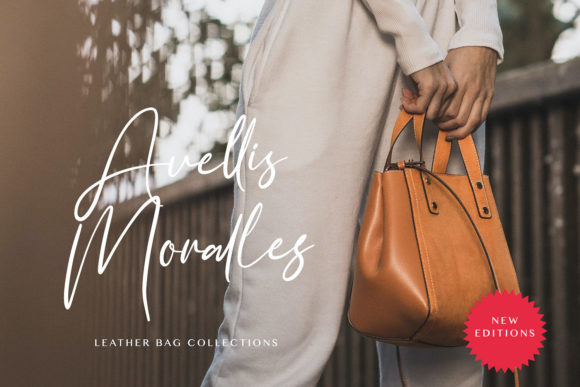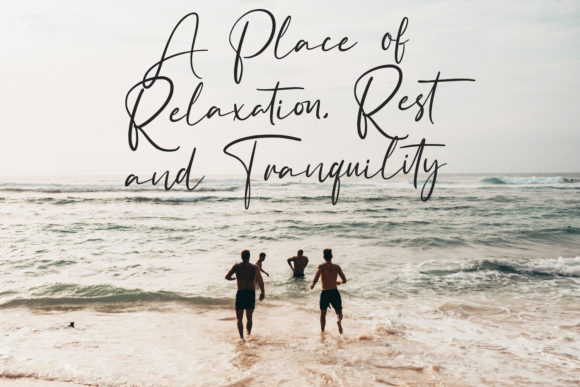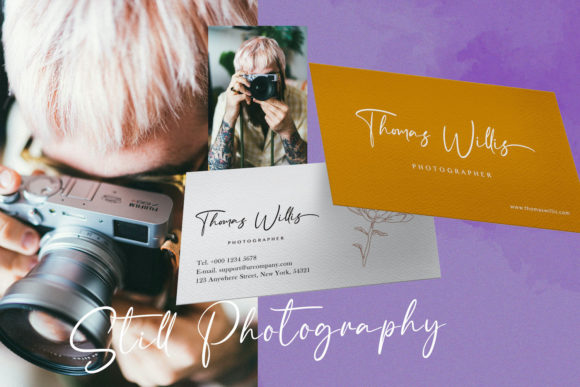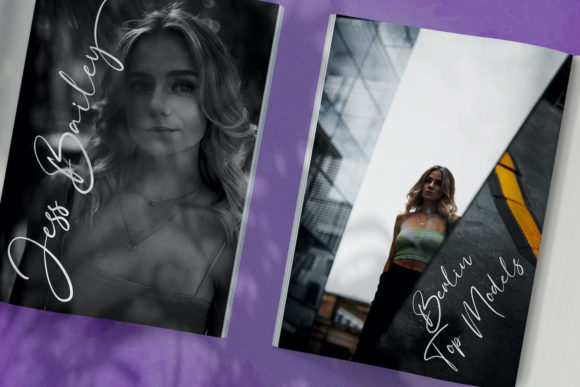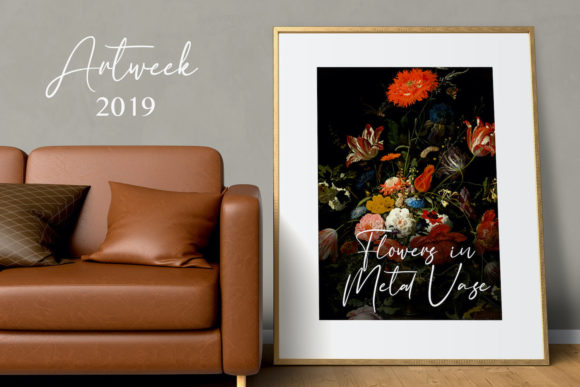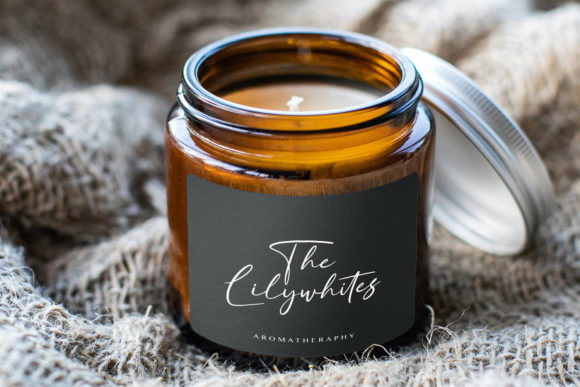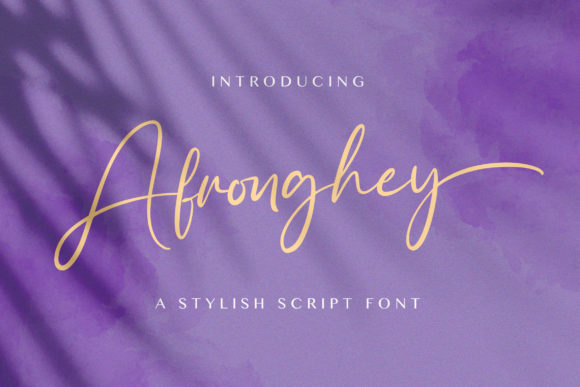
Afronghey Font: Elevate Your Designs with Elegance and Sophistication
In the world of typography, a font can make or break a design. For designers and crafters seeking to add a touch of elegance and sophistication to their work, the Afronghey Font is an exceptional choice. This beautiful script font boasts a flowing and refined aesthetic, perfect for creating stunning logos, branding materials, invitations, stationery, wedding designs, social media posts, and more.
The Characteristics of Afronghey Font
Afronghey Font is characterized by its classy, elegant, and modern look. Its unique design elements make it stand out from other script fonts, offering a distinctive flair that can elevate any design. The font’s flowing lines and refined features give it a sophisticated feel, making it ideal for projects that require a high level of elegance.
One of the key benefits of the Afronghey Font is its versatility. Its elegant design makes it suitable for a wide range of applications, including:
- Logos and Branding: Create a lasting impression with a logo that exudes sophistication and elegance.
- Invitations and Stationery: Add a touch of refinement to your invitations, business cards, and letterheads.
- Wedding Designs: Make your wedding designs truly unforgettable with a font that embodies romance and luxury.
- Social Media Posts: Elevate your social media presence with stylish and engaging posts.
Afronghey Font is PUA (Private Use Area) encoded, which means that accessing all the glyphs and swashes is effortless. PUA encoding allows designers to access a wide range of characters and glyphs that are not available in standard fonts. This feature makes it easy to customize your designs and add unique touches that make your work stand out.
Why Choose Afronghey Font?
With so many fonts available, why choose Afronghey Font? Here are a few compelling reasons:
- Unique Design: Afronghey Font offers a distinctive design that will set your work apart from others.
- Ease of Use: With PUA encoding, you can easily access all the glyphs and swashes, making it simple to create stunning designs.
- Versatility: This font can be used for a wide range of applications, making it a valuable addition to your design toolkit.
- Elegance and Sophistication: Afronghey Font brings a level of elegance and sophistication to your designs, ensuring that your work looks professional and high-end.
Tips for Using Afronghey Font
To get the most out of Afronghey Font, consider the following tips:
- Pair with Complementary Fonts: Combine Afronghey Font with complementary fonts to create visually appealing designs.
- Experiment with Glyphs and Swashes: Take advantage of the PUA encoding to experiment with different glyphs and swashes, adding unique touches to your designs.
- Use for Headings and Titles: Afronghey Font is perfect for headings and titles, where its elegant design can make a significant impact.
Afronghey Font is a beautiful and versatile script font that can elevate your designs to new heights. Its elegant and sophisticated design makes it perfect for a wide range of applications, from logos and branding to wedding designs and social media posts. With PUA encoding for easy access to glyphs and swashes, this font is a valuable addition to any designer’s toolkit. Whether you’re a professional designer or a crafter, Afronghey Font is sure to become a favorite in your collection.